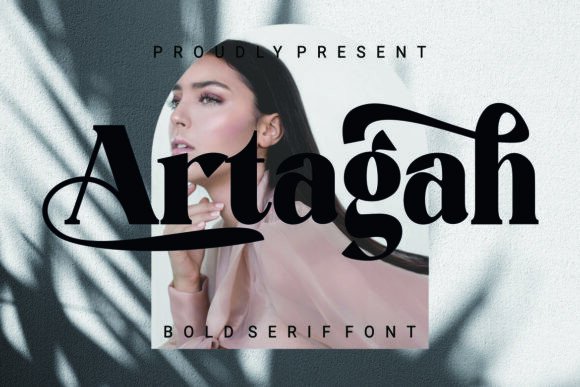
The Elegance of Artagah: A Serif Font That Stole My Heart
I still remember the design project that led me to discover the Artagah font. I was working on a wedding invitation suite for a client who wanted something elegant, yet modern. I had spent hours browsing through font libraries, but nothing seemed quite right. That was until I stumbled upon Artagah – an elegant and bold serif font that instantly caught my eye. ✨
I’ve had the pleasure of working with Artagah on several projects, and here’s what I think:
- ✅ Versatility: Artagah is incredibly versatile, making it perfect for a wide range of design projects, from wedding invitations to social media posts.
- ✅ Elegant and Bold: The font’s serif design adds a touch of sophistication and elegance to any design.
- ✅ Easy to Read: Despite its bold style, Artagah remains surprisingly readable, even at smaller font sizes.
Now, I’m not going to sugarcoat it – there are a few quirks to be aware of:
- ⚠️ Limited Ligatures: While Artagah does offer some beautiful ligatures, the selection is limited compared to other fonts.
- 🤔 Kerning Issues: As with any font, there may be some kerning issues, especially when using certain character combinations.
The Story Behind Artagah
Artagah was designed with elegance and versatility in mind. While I couldn’t find much information on the designer’s background, it’s clear that they drew inspiration from classic serif fonts, with a modern twist. The result is a beautiful, bold font that’s perfect for a wide range of design projects.
| Is Artagah suitable for body text? | While Artagah is a beautiful font, it’s better suited for headings and titles. For body text, you may want to choose a font with better readability at smaller font sizes. |